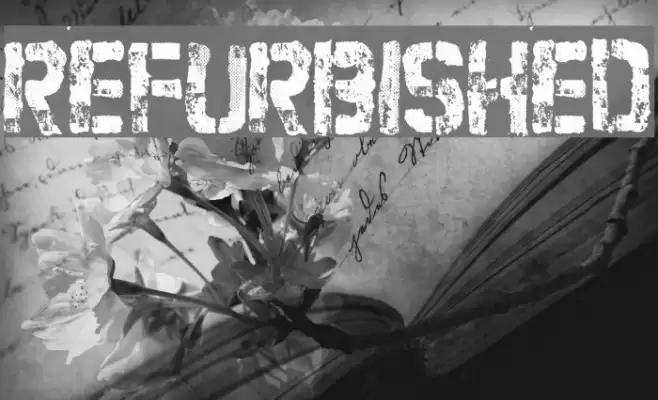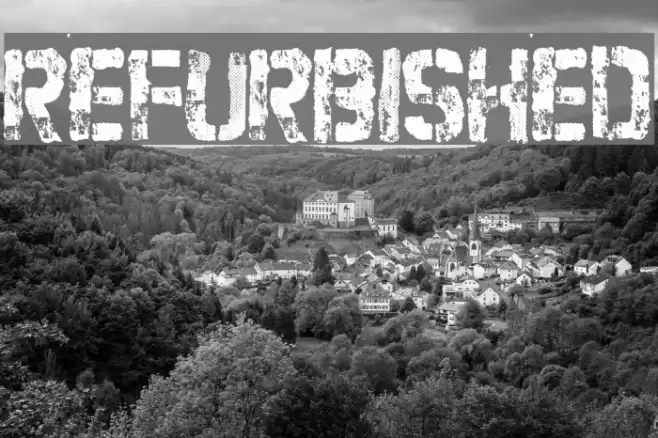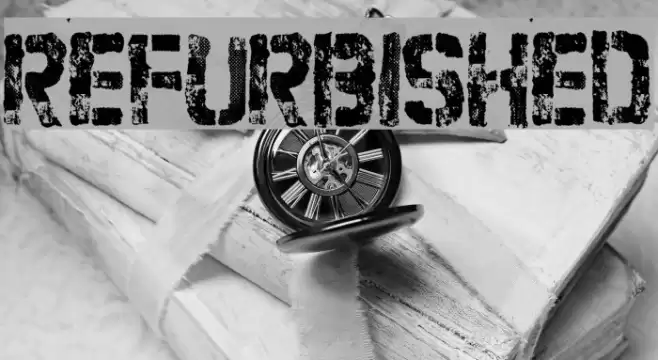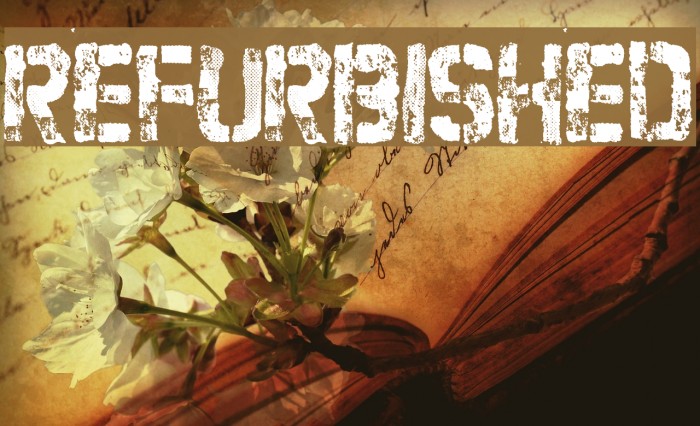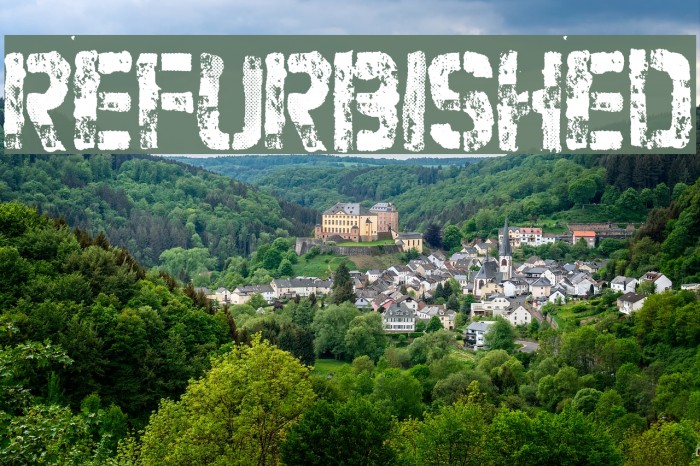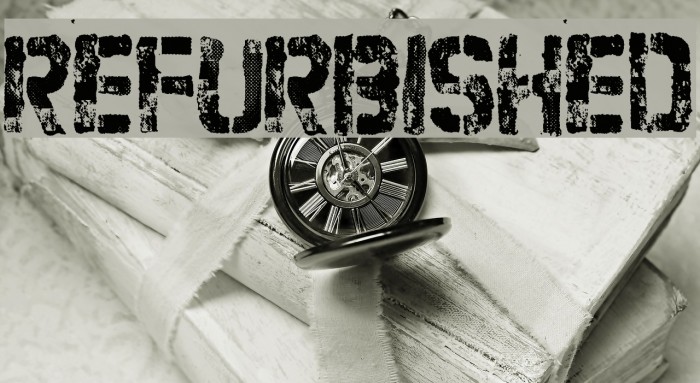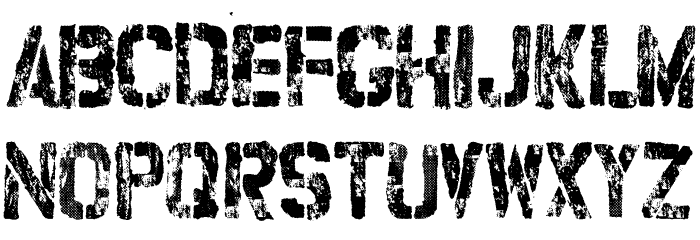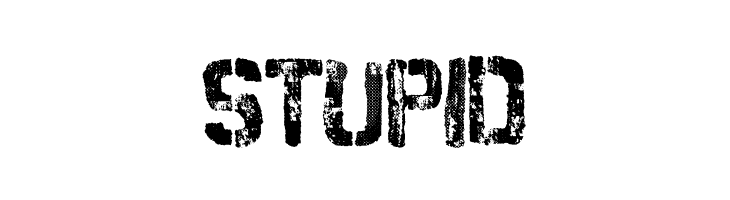
Refurbished Font
Refurbished Description
This font features a distressed, grunge style with a textured appearance that gives it a worn, vintage feel. The uppercase letters are bold and impactful, with irregular edges that suggest a sense of ruggedness and authenticity. The font's design is reminiscent of old, weathered signage or typewriter text that has been through wear and tear. Its unique character makes it stand out, providing a strong visual presence. The texture within each letter adds depth and interest, making it suitable for projects that require a bold statement or an edgy, artistic touch.
- Proposed Projects: Ideal for posters, album covers, branding for edgy or vintage-themed products, and any design needing a bold, textured statement.
- Overall Style: Vintage, Grunge